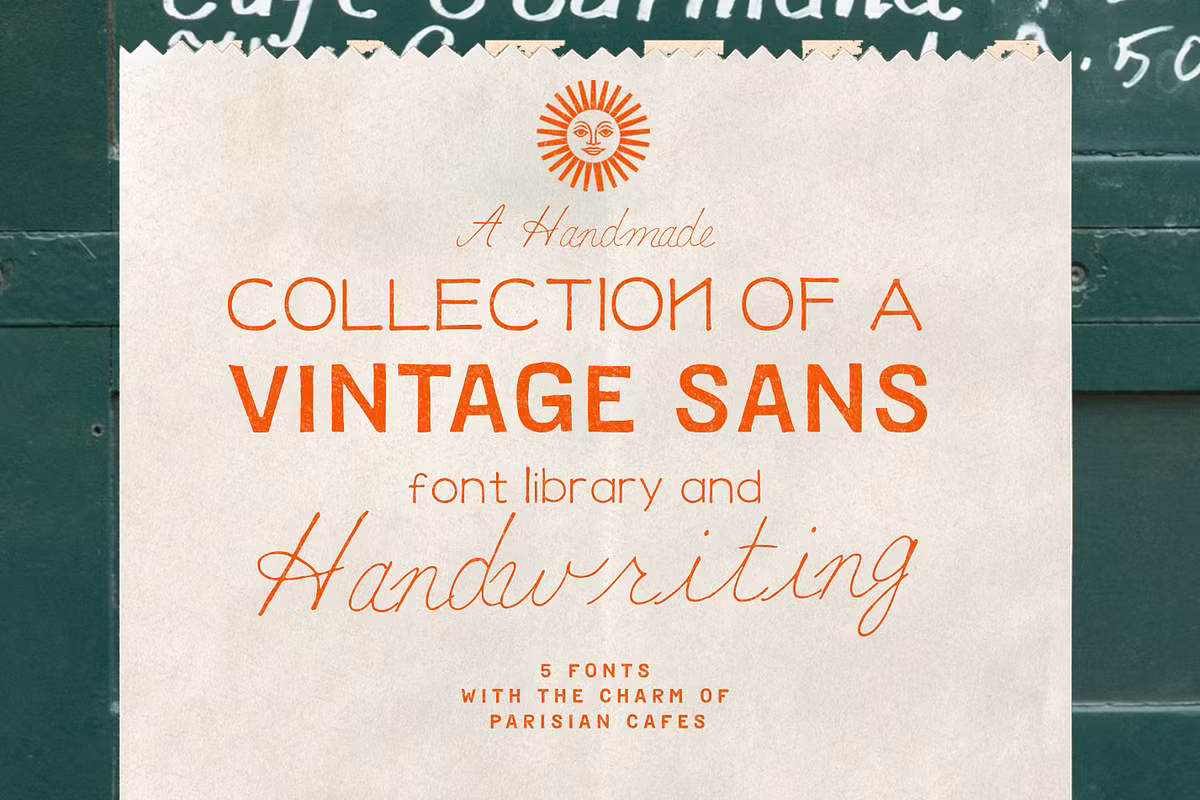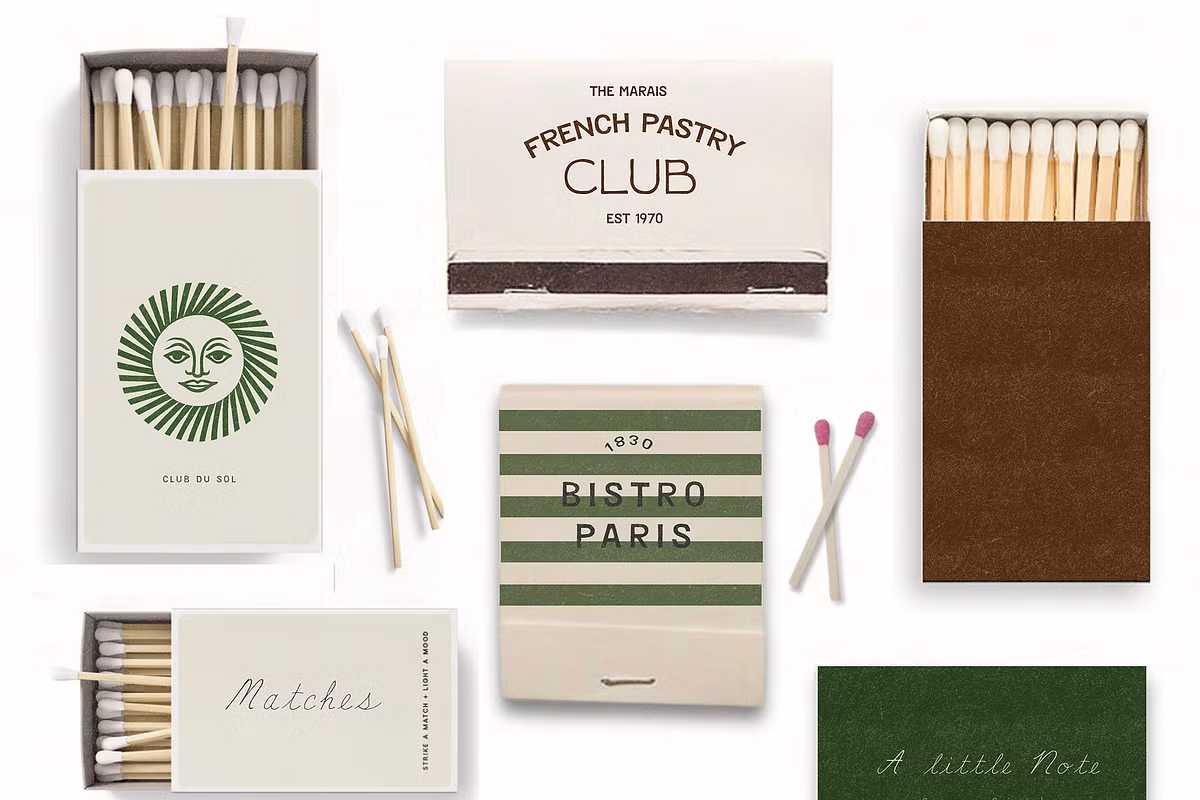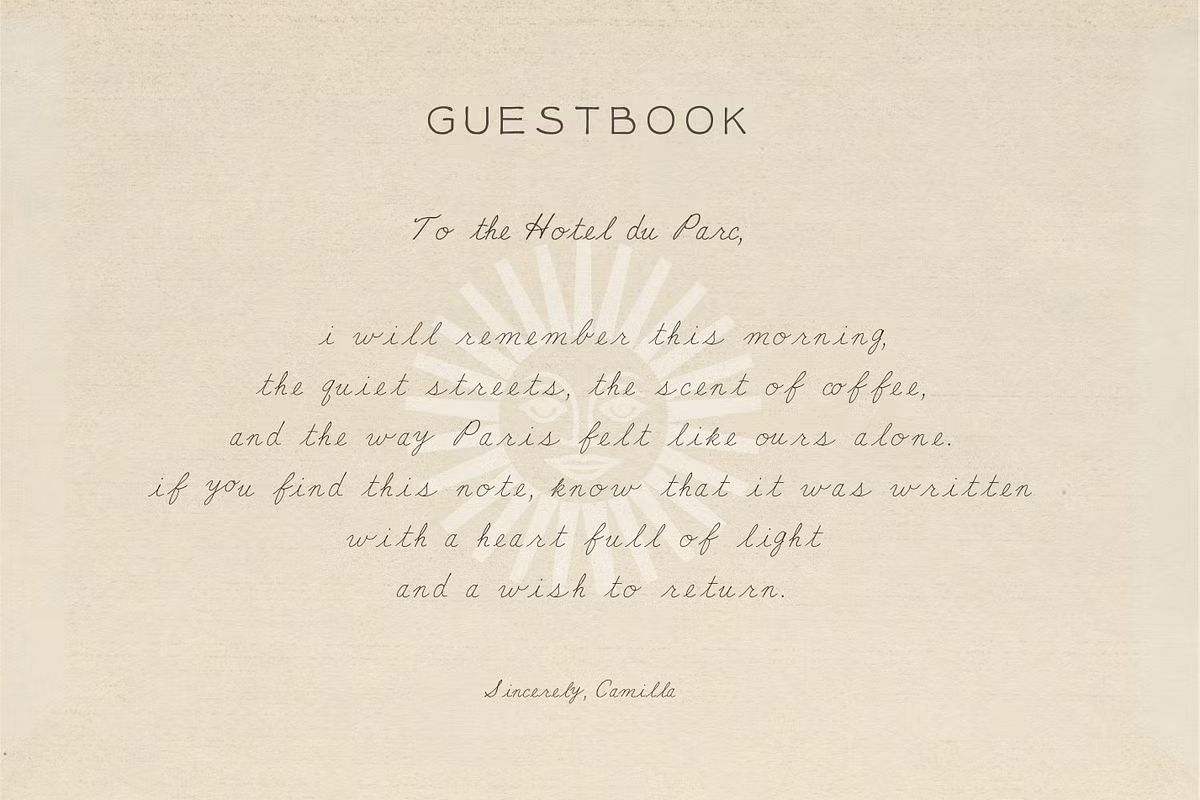
Handmade Vintage Sans & Script Font: Elegant Handcrafted Typography Collection
Introduction to the Handmade Vintage Sans & Script Font Collection
The Handmade Vintage Sans & Script Font Collection is a really special set of fonts – five of them, all carefully made to bring together the best of old-fashioned style and modern design. It’s all about showcasing the beauty of handwriting, with a nostalgic feel that can really make your projects stand out. If you want to add a touch of elegance and personality to your work, these fonts are perfect. They’re great for anyone who wants to give their designs a sense of history and creativity. With these fonts, you can create something truly unique and eye-catching.
Design Style and Features
The Handmade Vintage Sans & Script Font Collection has a special kind of font that looks like it was written by hand. This gives it a warm and personal feel. Each font was made for a specific reason, and the designers got their ideas from old letters, postcards, and menus from cafes. The collection has a lot of different fonts, including:
- FrenchPastry. Otf: An irregular vintage sans serif that captures the essence of playful sophistication.
- FrenchPastryOutline. Otf: A variant of the FrenchPastry, providing an outlined version that adds depth and visual interest.
- PoastalNotes: An elegant handwritten script font that mimics the fluidity of traditional calligraphy.
- Guestbook: A vintage sans font with a letterpress vibe, perfect for adding a classic touch.
- Brasserie: A clean and bold vintage sans that stands out in any design project.
These fonts not only bring style but also versatility, making them suitable for various design projects.
Character Sets and Glyphs
The Handmade Vintage Sans & Script Font Collection is really special because it has a huge selection of characters, called glyphs, that can be used in many different languages and design projects. This means you can use these fonts to create all sorts of things, like posters, signs, and websites, and they will look great in many different languages. Each font in the collection has been carefully designed to include all the characters you might need, so you can use them for lots of different purposes.
- Uppercase and lowercase letters
- Numbers and punctuation
- Special characters and ligatures for enhanced typographic compositions
You can use these fonts for all sorts of things, like creating a brand or making personalized stationery, because they have such a wide range of characters. This means your text can be just as creative and expressive as your overall design. Whether you’re working on a big project or just something small, these fonts can help you add a personal touch and make your text really stand out.
Use Cases for the Collection
The Handmade Vintage Sans & Script Font Collection is incredibly versatile, making it ideal for numerous applications. Here are some key use cases:
- Branding: Create a unique brand identity that stands out with the vintage charm of these fonts.
- Packaging: Enhance product packaging with fonts that convey a sense of nostalgia and elegance.
- Editorial Design: Perfect for magazines, books, and other editorial materials that require a touch of sophistication.
- Wedding Stationery: Use for invitations, save-the-dates, and other wedding-related materials to evoke romance and elegance.
- Digital Projects: Ideal for websites, social media graphics, and other digital content that needs a personal touch.
With such a wide range of applications, these fonts can help elevate your design work in multiple ways.
To maximize the impact of the Handmade Vintage Sans & Script Font Collection, consider pairing fonts from the collection to create dynamic typographic compositions. Here are some pairing suggestions:
- FrenchPastry + PoastalNotes: Combine the playful elegance of FrenchPastry with the fluidity of PoastalNotes for a charming, handwritten look.
- Guestbook + Brasserie: Use Guestbook for headings and Brasserie for body text to achieve a clean yet vintage aesthetic.
The French Pastry Outline style can give a modern look to the classic Brasserie font, which is perfect for packaging designs. This combination is great because it makes the bold font feel fresh and new.
The Handmade Vintage Sans & Script Font Collection is like a treasure box full of beautiful letters and designs from the past. It has five special fonts, each with its own look and feel, that can be used for lots of things like making brands look nice or creating pretty wedding invitations. The people who made these fonts thought about all the little details and made sure they can be used in many different ways, which makes them super useful for designers who want to add some charm and class to their work. By using these fonts, designers can make their work look really elegant and special, like something from a long time ago. This collection is a must-have for anyone who wants to make their designs stand out and look amazing.